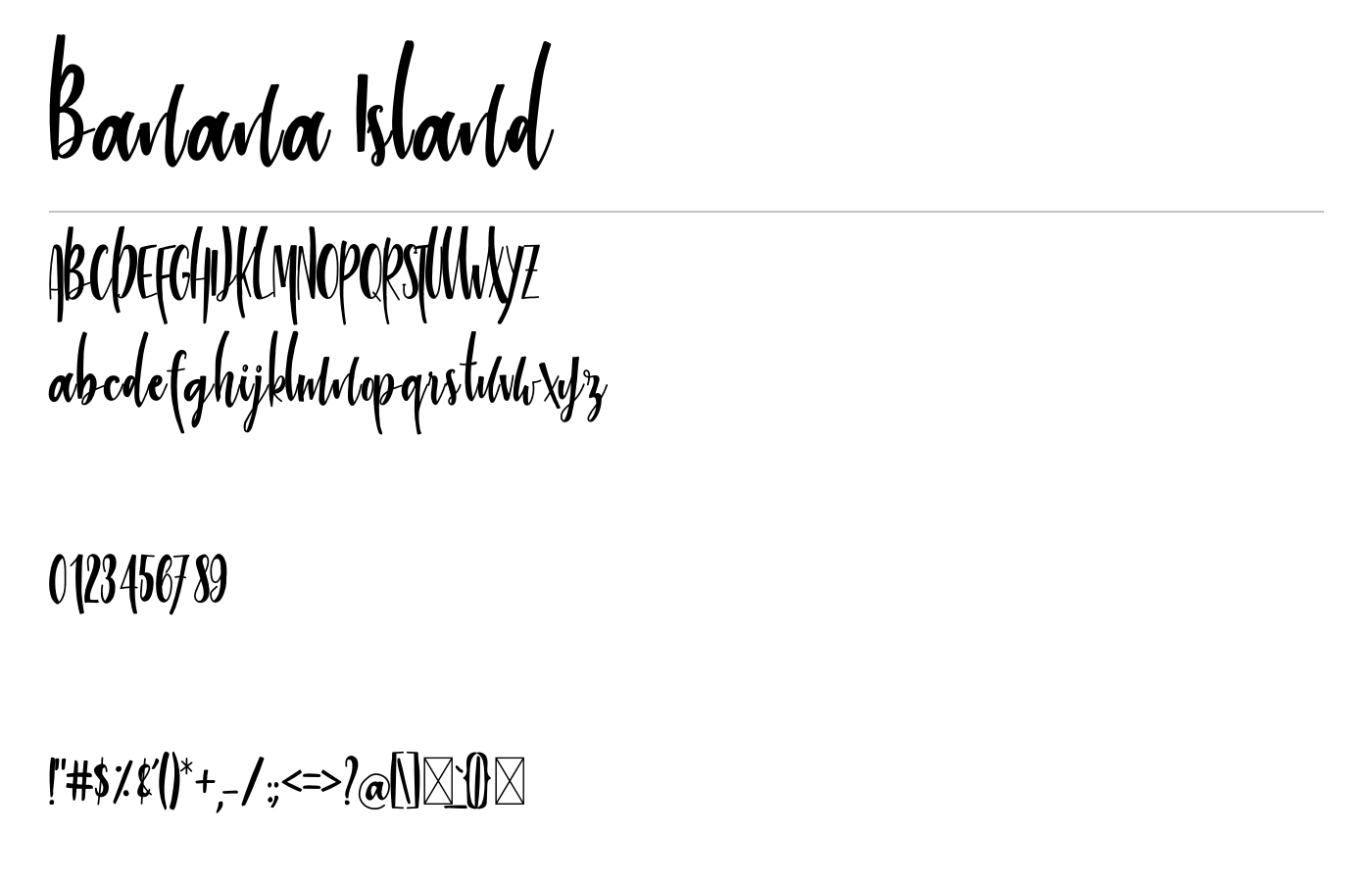
Banana Island is a lively handwritten script font featuring tall, narrow letterforms with a playful yet elegant vibe. Its flowing strokes and casual style make it perfect for creative branding, invitations, and packaging that aim to convey a friendly, personal touch. This font shines in display uses where personality and charm are key.
Banana Island Font